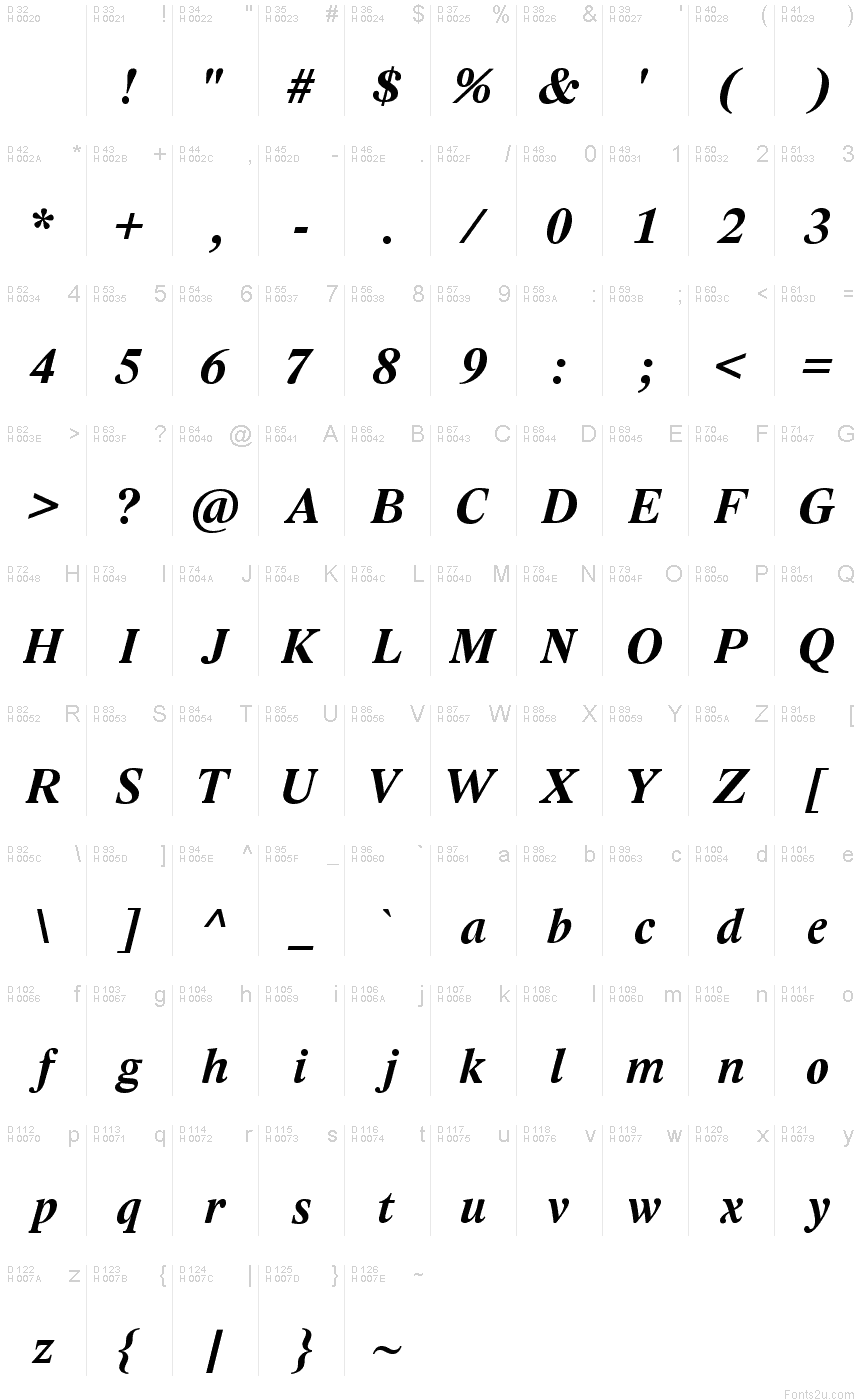
Lido STF CE Bold Italic
Lido STF CE Bold Italic, a free old-style serif by Frantisek Storm, carries the graceful, literary air of Renaissance italics. The letters lean with a calligraphic sweep, pairing sharp contrast and fine joins with broad, dark curves that give the alphabet a cultured, slightly dramatic rhythm.
This free font feels at home in book covers, museum graphics, editorial mastheads, poetry titles, and wine or boutique food packaging, where that classical slant can do more with fewer words. It also suits short pull quotes, title cards, and monograms, because the capitals and lowercase both have enough flourish to make brief settings feel deliberate.